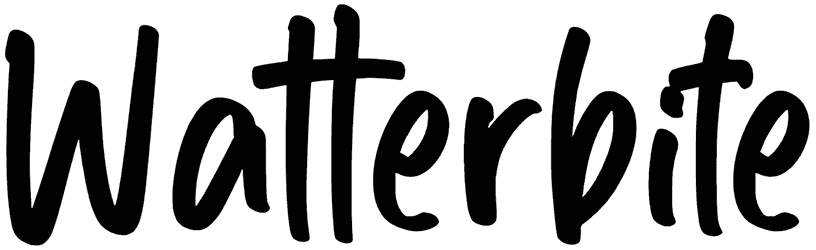
Watterbite Font
It’s worth a try, script font with a cheerful and merriment pattern can refresh and update your design. Watterbite is precisely what you need to develop a noteworthy outcome of posters, greeting cards, comic book covers, and whatnot.
Watterbite is a classy script font. Made for any professional project branding. It is the best for logos,branding and quotes. Every letter has a unique and beautiful touch.-Link to purchase commercial license with an option: https://ditatype.com/product/watterbite-handwritten-font/